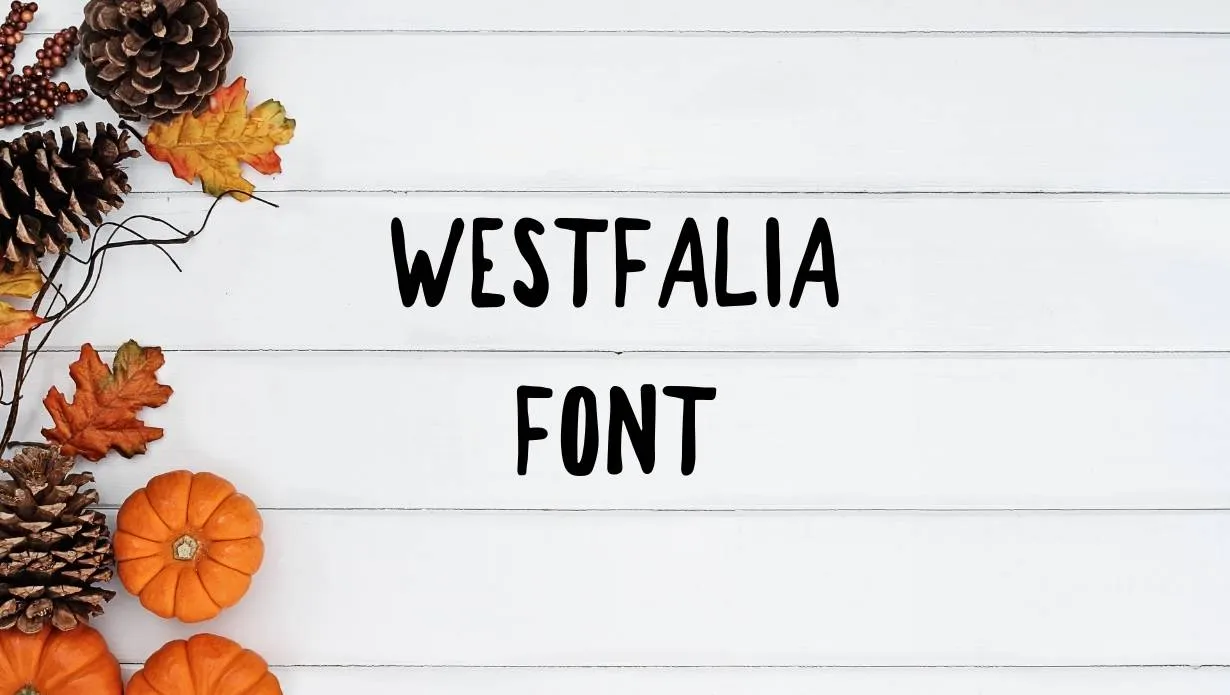
About Westfalia Font Free Download
Westfalia Font Free Download is a modern typeface available in multiple variants and styles.
- Westfalia Font Regular
- Westfalia Font Bold
- Westfalia Font Italic